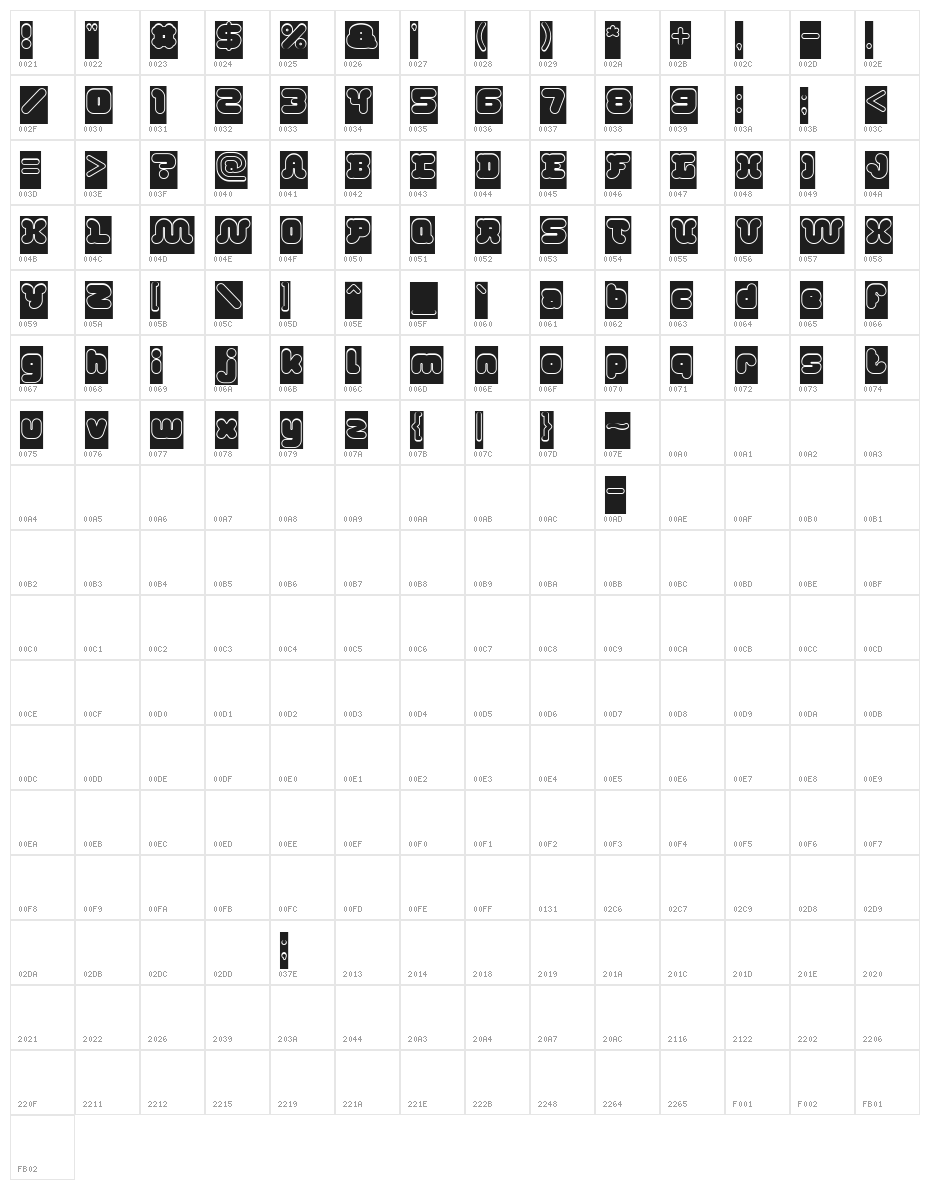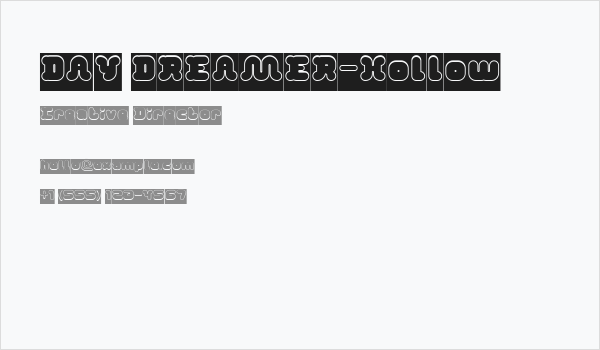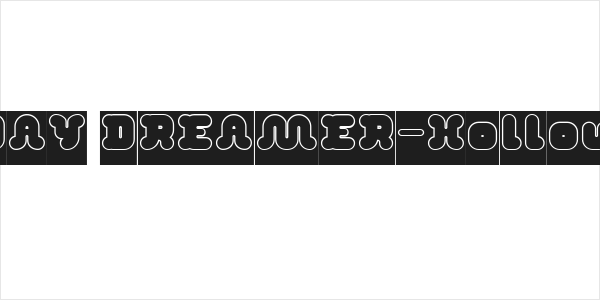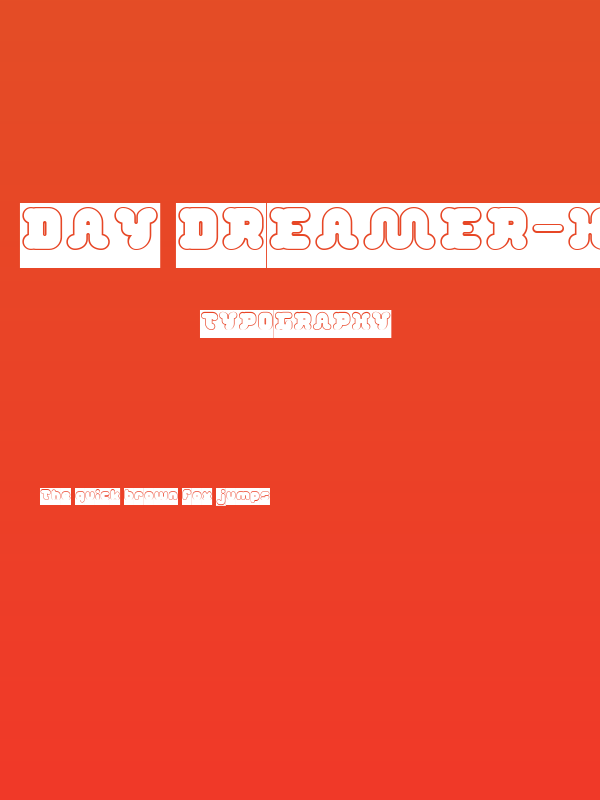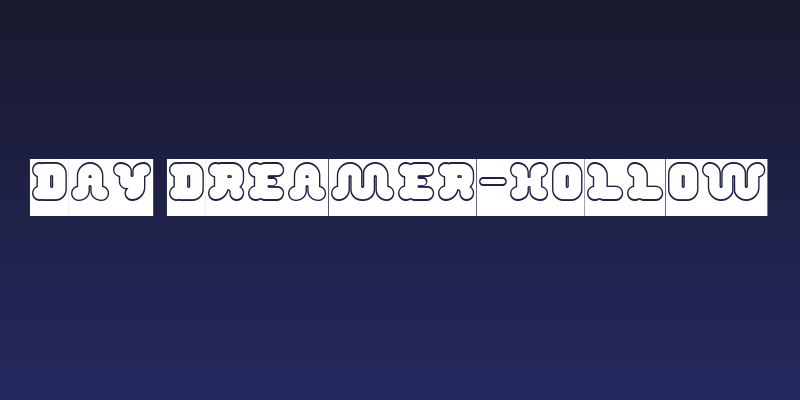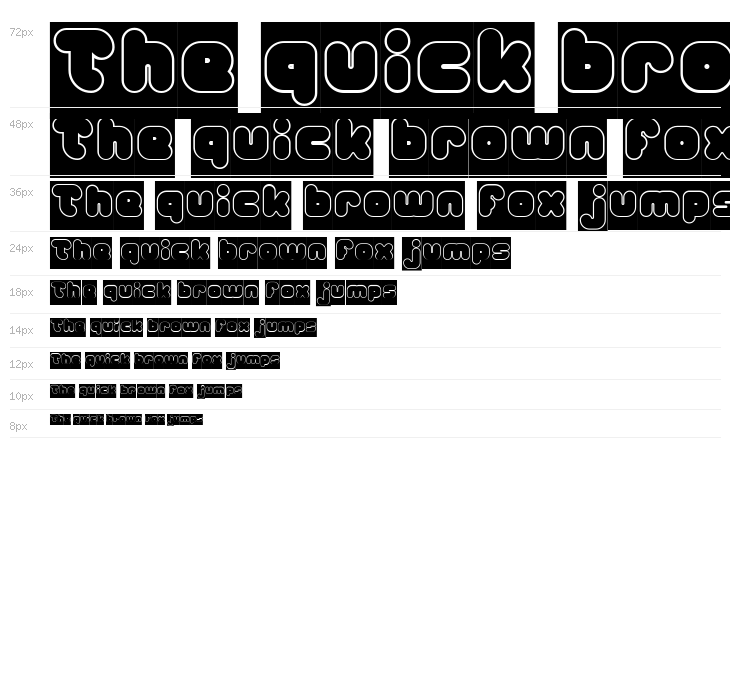
DAY DREAMER-Hollow Font
DAY DREAMER-Hollow Description
This font features a playful and bold hollow design, characterized by thick outlines and a bubbly, rounded appearance. Each character is crafted with a consistent stroke width, creating a cohesive and uniform look. The font's hollow nature gives it a unique, airy feel, making it stand out in any design. The uppercase and lowercase letters maintain a similar style, ensuring readability while adding a touch of whimsy. Numbers and special characters are designed to match the overall aesthetic, providing a complete and versatile typeface. Ideal for projects that require a fun and engaging visual element.
| Overall Style | Playful, Modern |
| Proposed Projects | Perfect for children's books, playful branding, event posters, and creative social media graphics. |